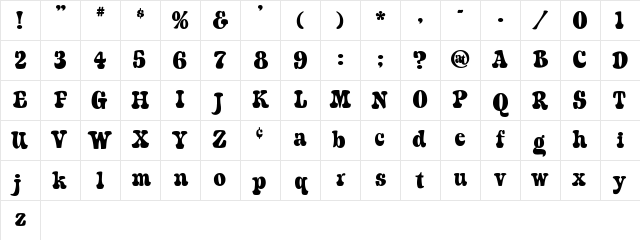
A&S Porkchop Primitive Bold Free Font
A&S Porkchop Primitive Bold
Foundry: SIGNFONTS-Art&Sign studio
Designer: Steve Contreras
Design Context for A&S Porkchop Primitive
A&S Porkchop Primitive is a composed and adaptable typeface that performs quietly and consistently across a wide range of design contexts. Its bold stroke weight gives it real presence on the page.